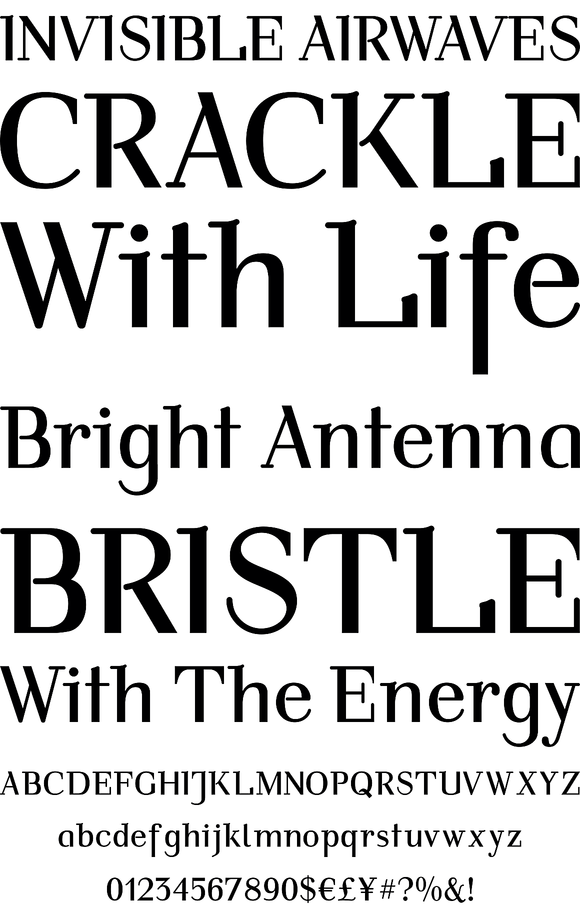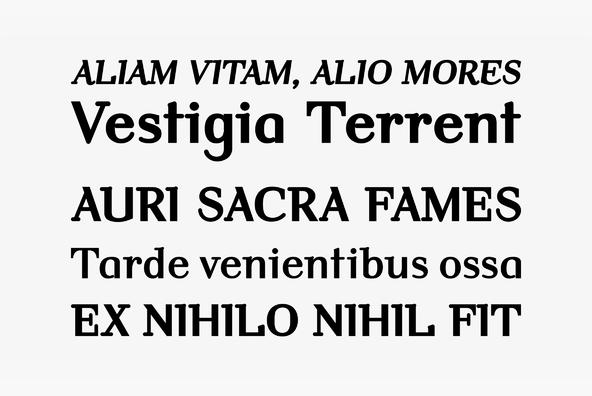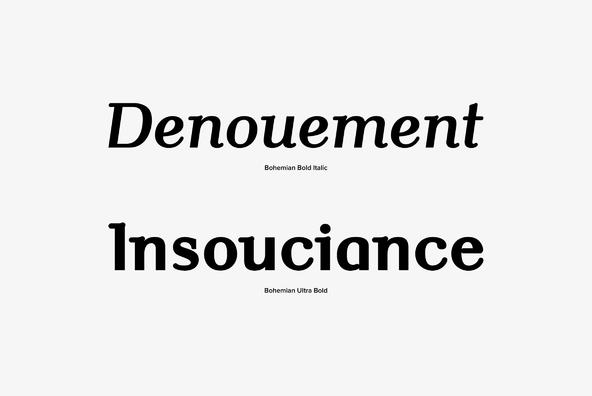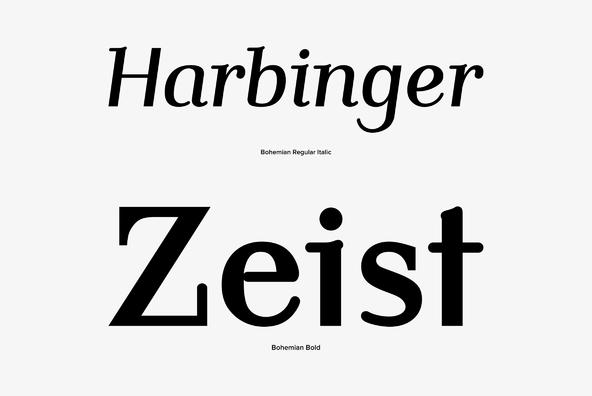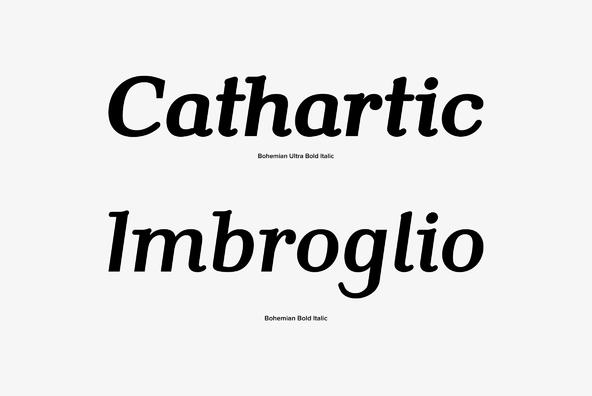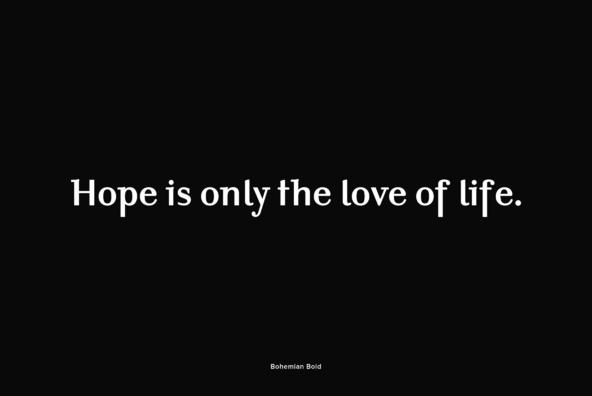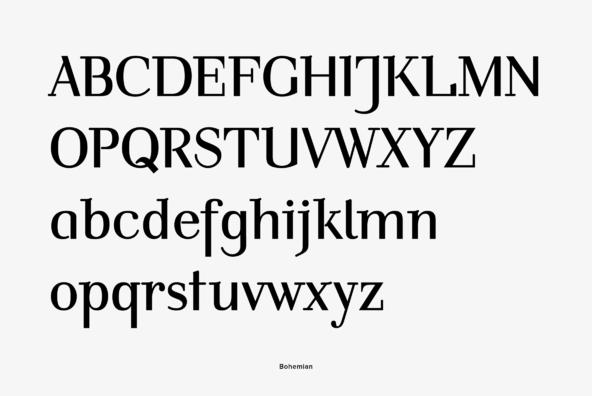
Bohemian
Mixed designs of Futura and Bodoni (Fudonis) are quite popular. Apart from being contemporary, such fonts provide excellent readability. However, most of the existing mixtures were not good enough in terms of balance for P. Kraft. He was finally inspired by a noticeable mixture in a Japanese fashion magazine.
His intention was not to combine two existing fonts but to design a completely new typeface: Bohemian - named after the well-known Japanese fashion style in Shibuya/Tokyo - the Bohemian Style.
Bohemian was designed for the URW FontForum.